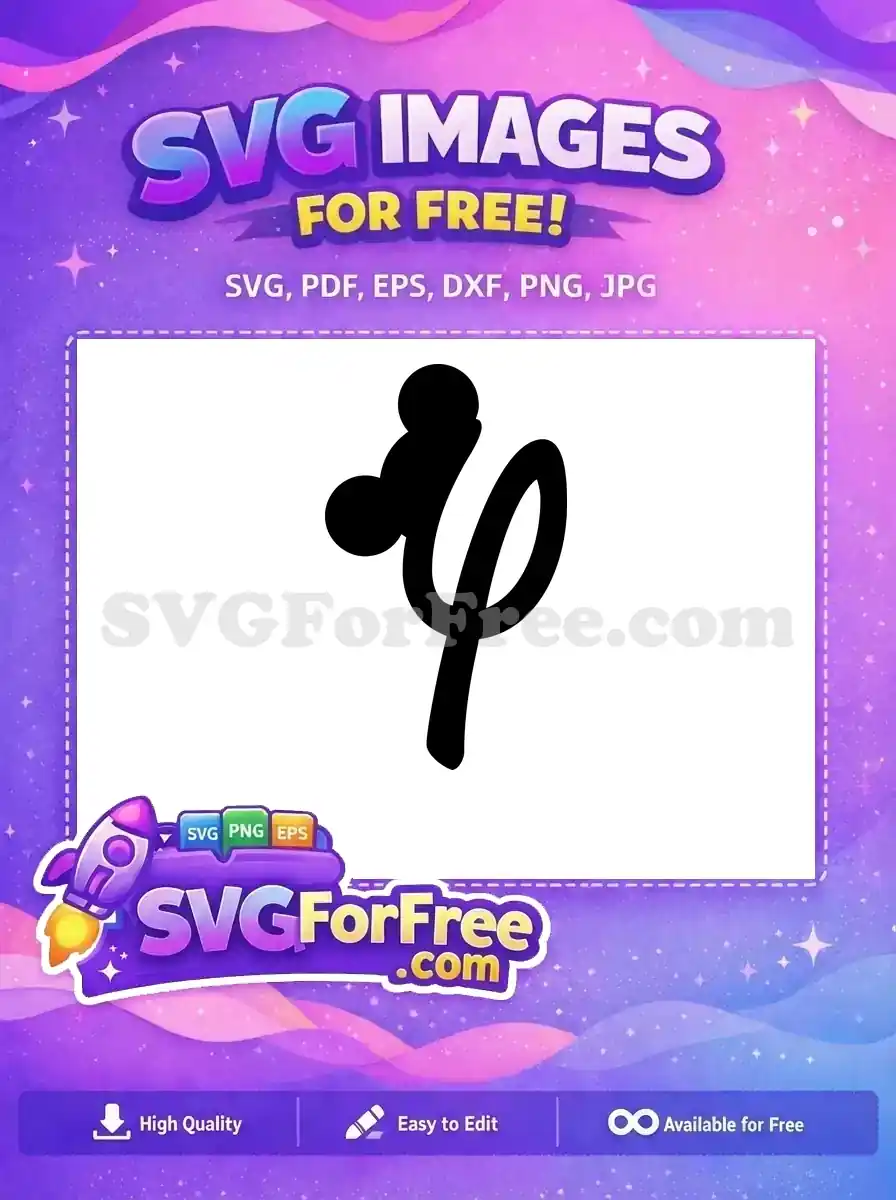
Free Black Minnie Font Free Initial Letter Free SVG – Instant Download
Lowercase ‘y’ or symbol with a mouse ear accent, free vector graphic.
Free Black Minnie Font Free Initial Letter Free SVG